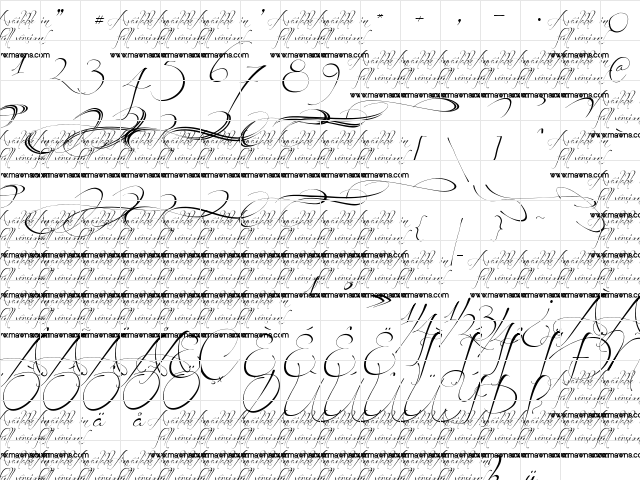
Before the Rain Swashes DEMO Regular
Foundry: M￿ Greb￿
Designer: M￿ Greb￿
Design Context for Before the Rain Swashes DEMO
Before the Rain Swashes DEMO flows with the natural rhythm of handwritten lettering, making it ideal for designs that call for warmth and personal expression.
Font Pairing: Combine Before the Rain Swashes DEMO with a simple geometric sans for maximum contrast - the tension between flowing curves and clean structure is a classic typographic pairing.
Pro Tip: Use Before the Rain Swashes DEMO for short runs of text - names, titles, or taglines. Extended body copy in script faces tires the eye quickly.